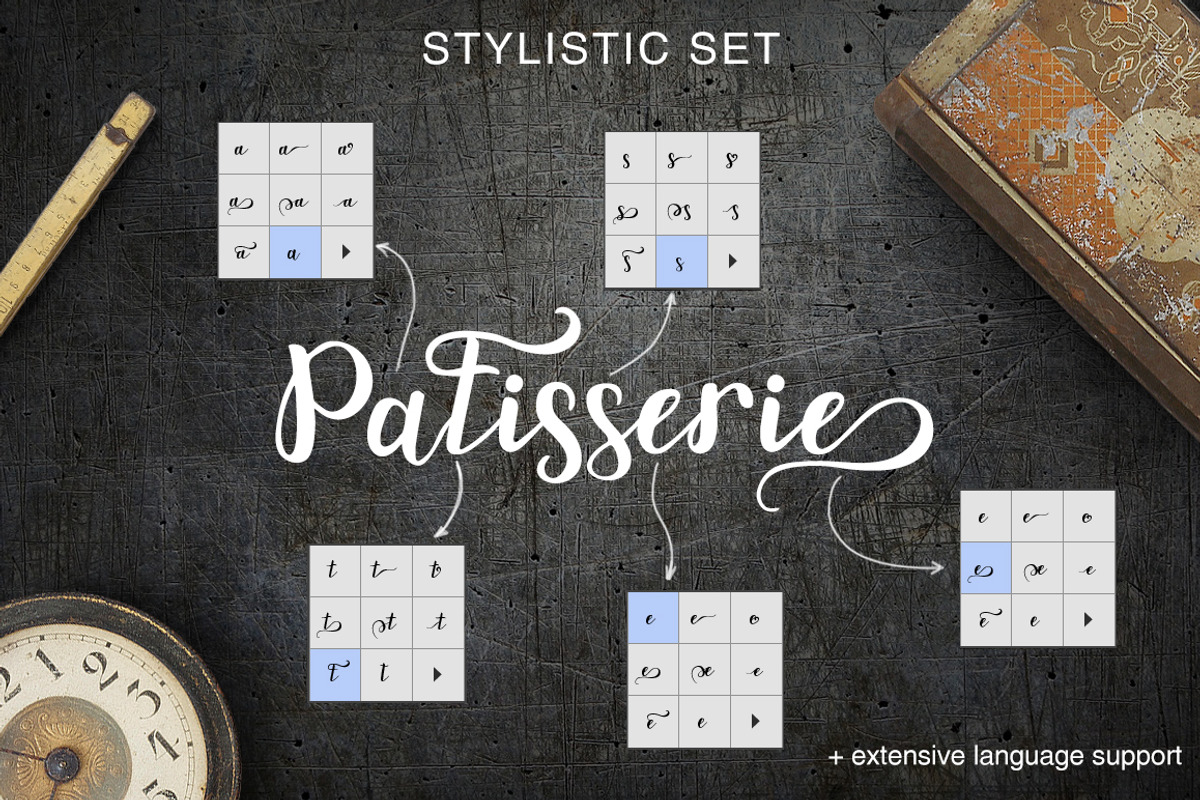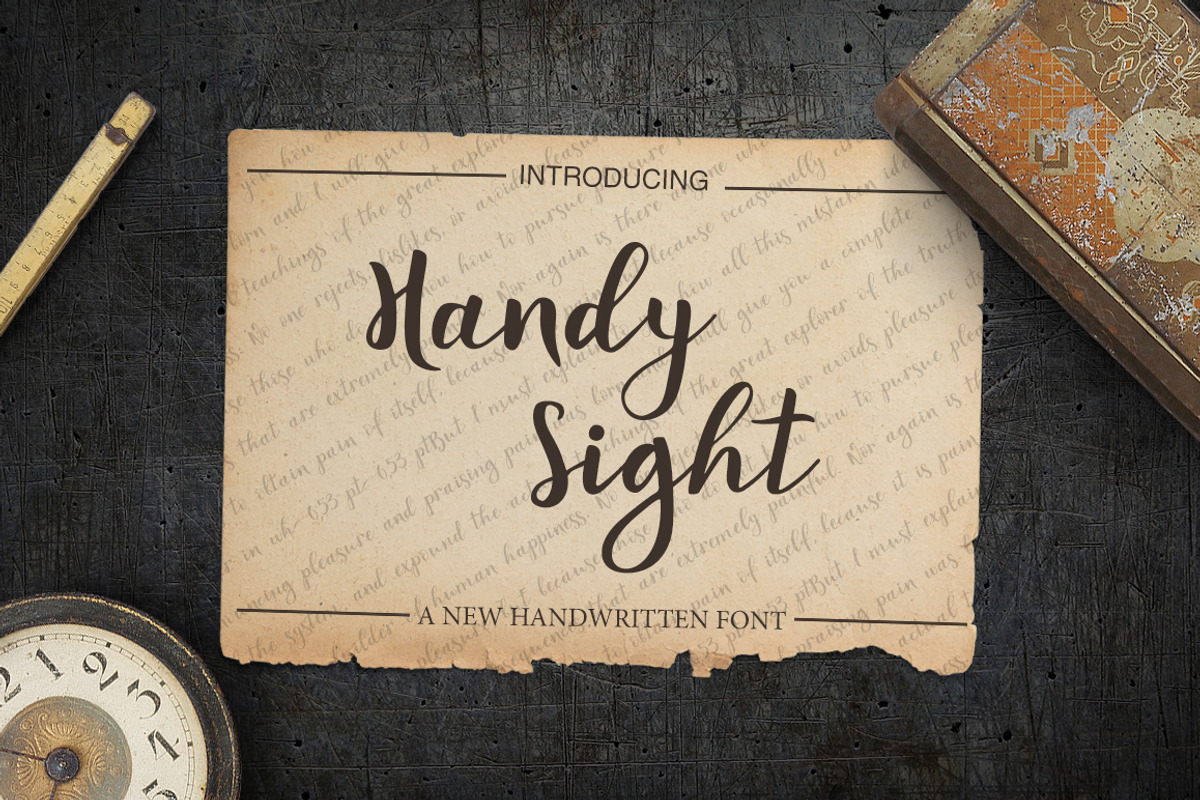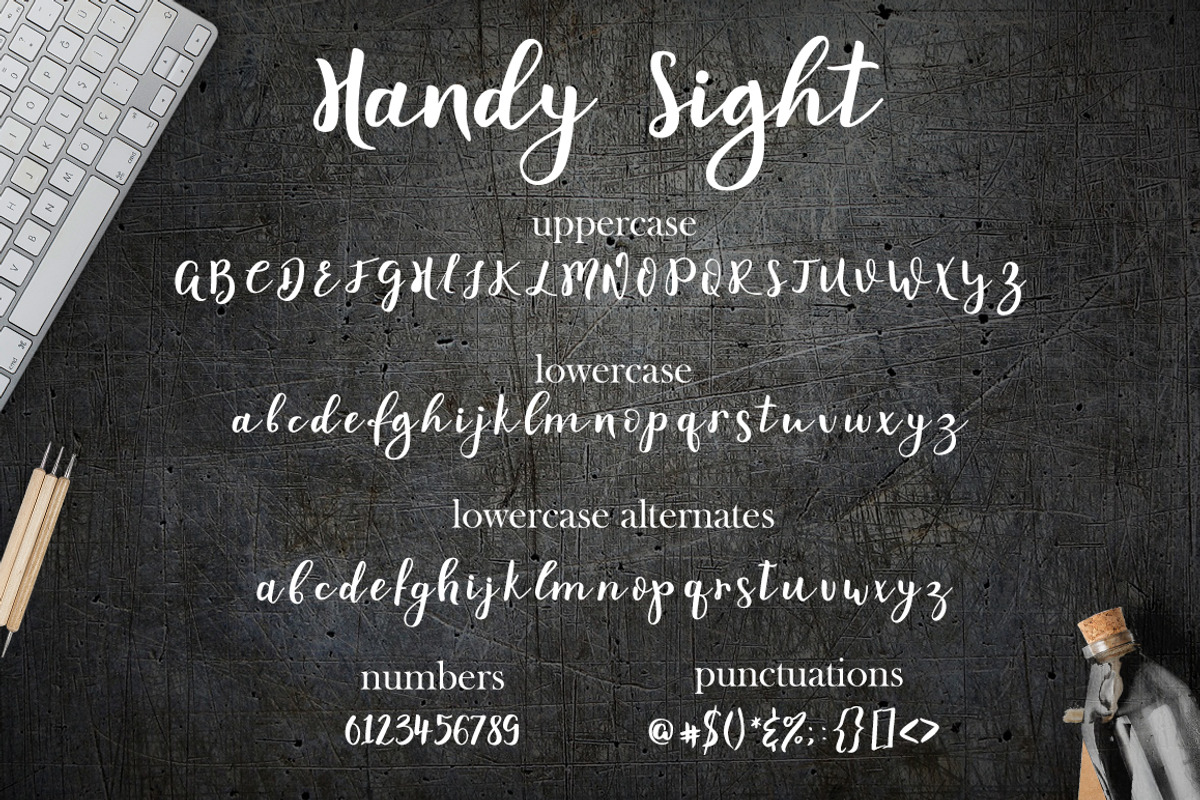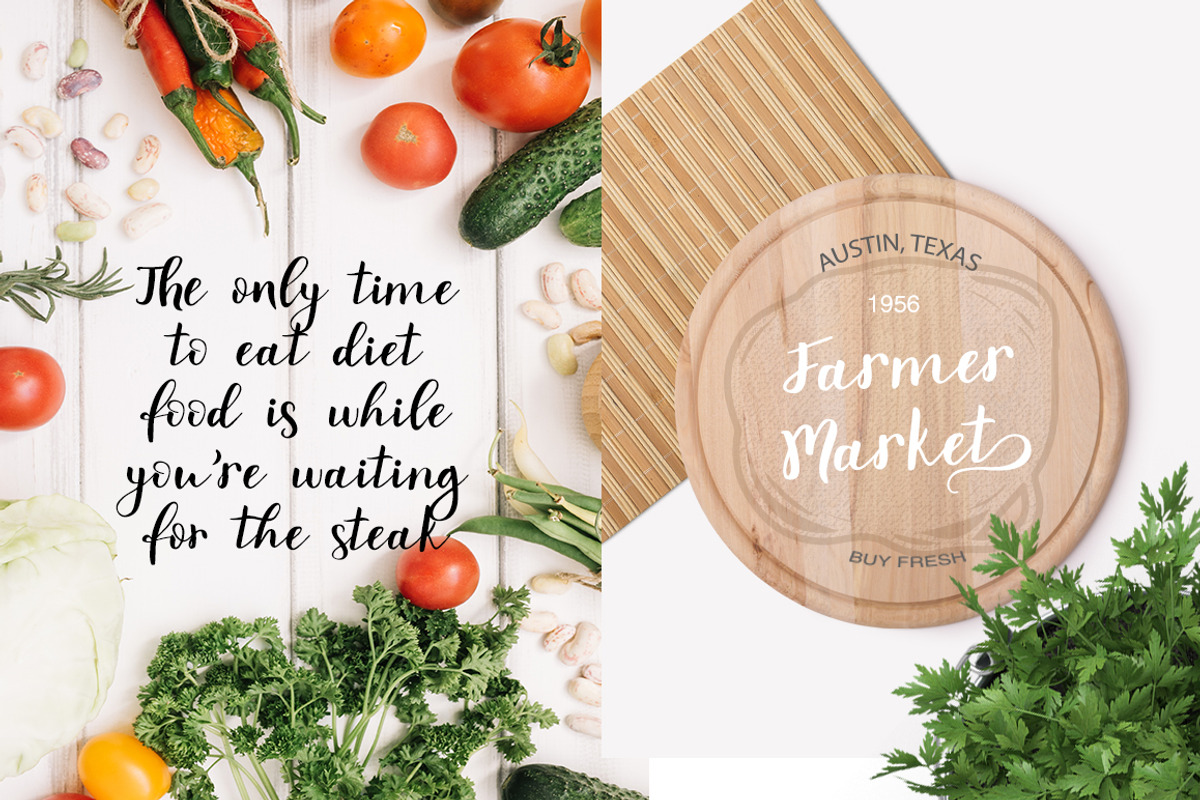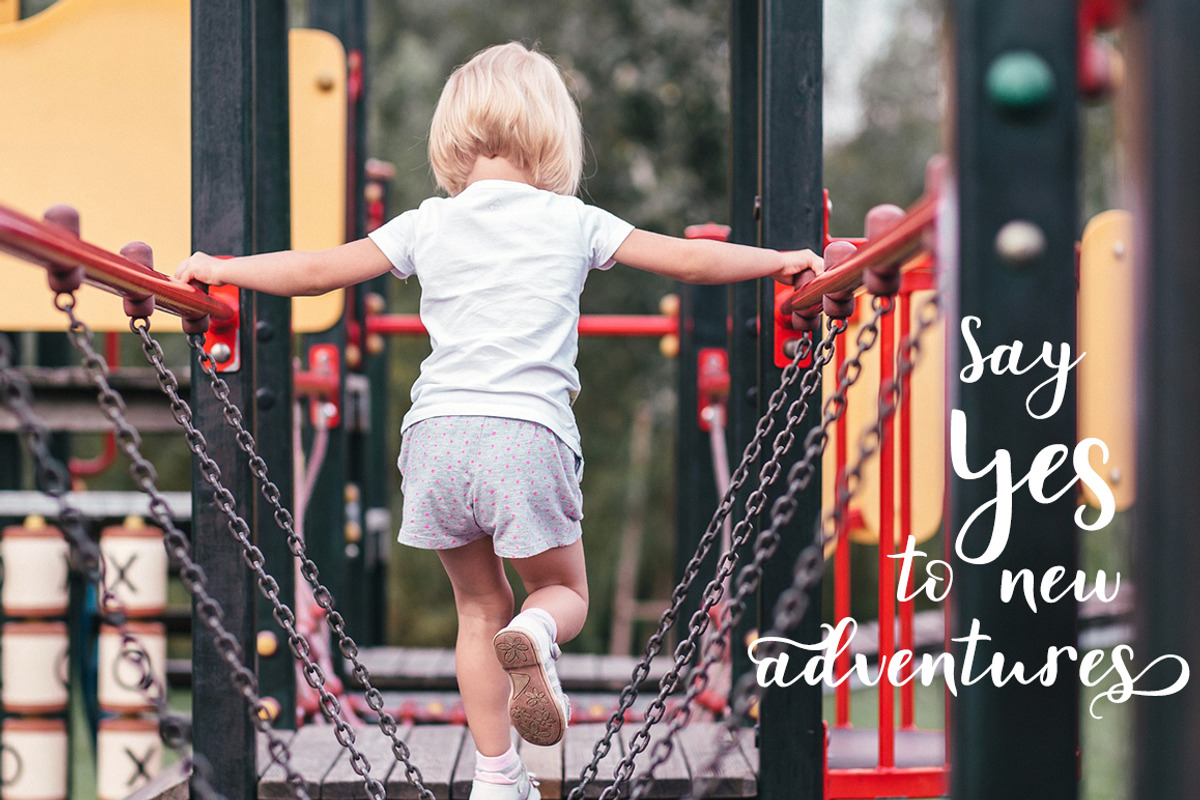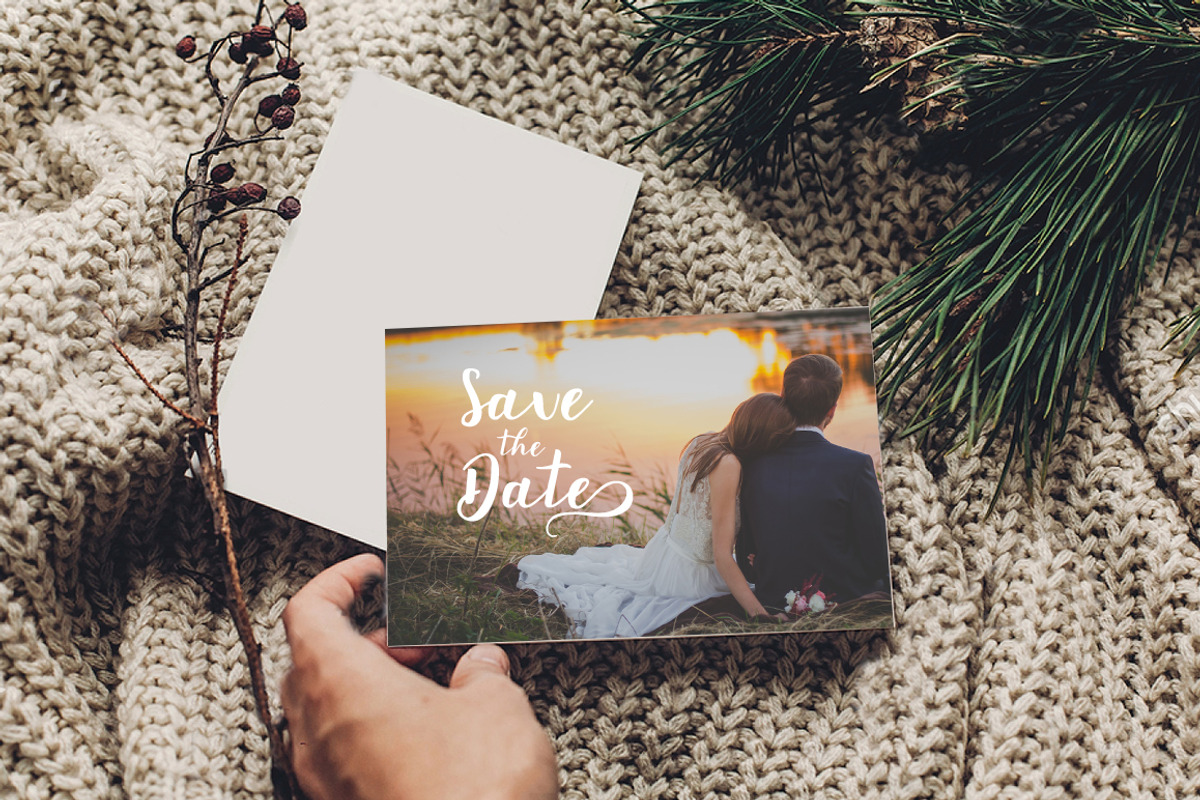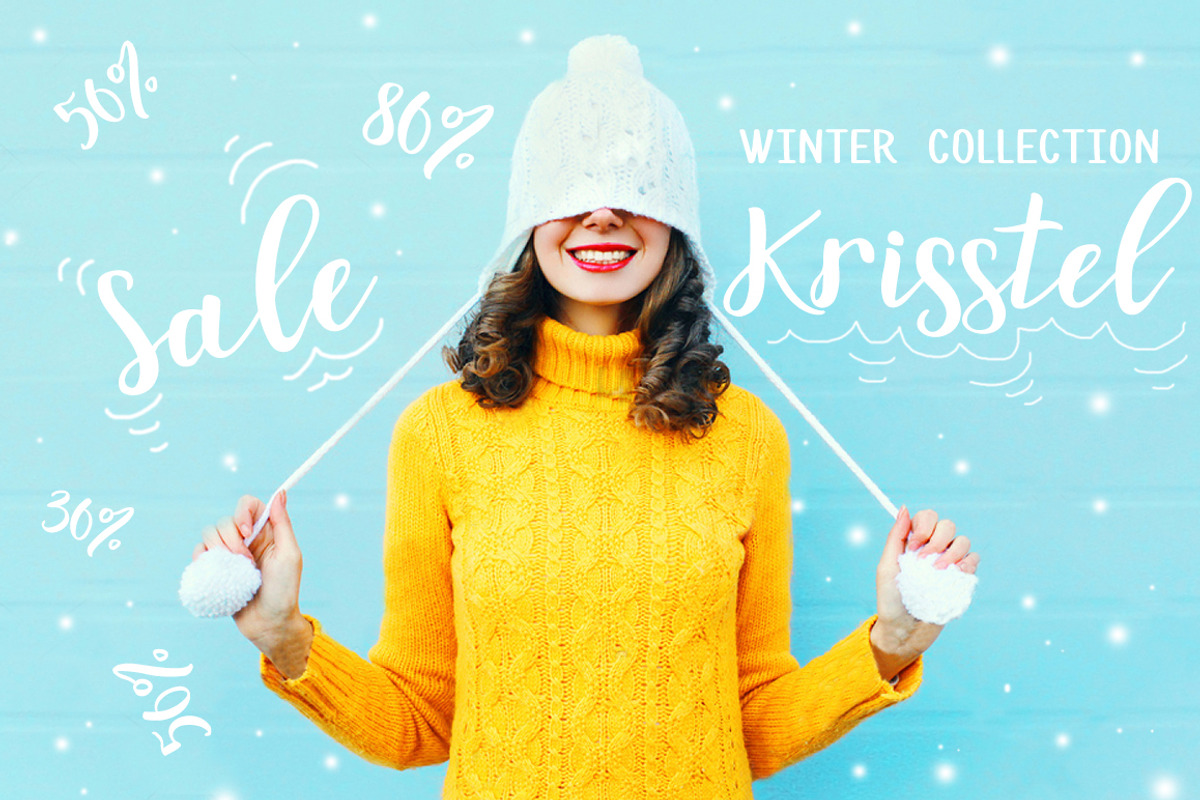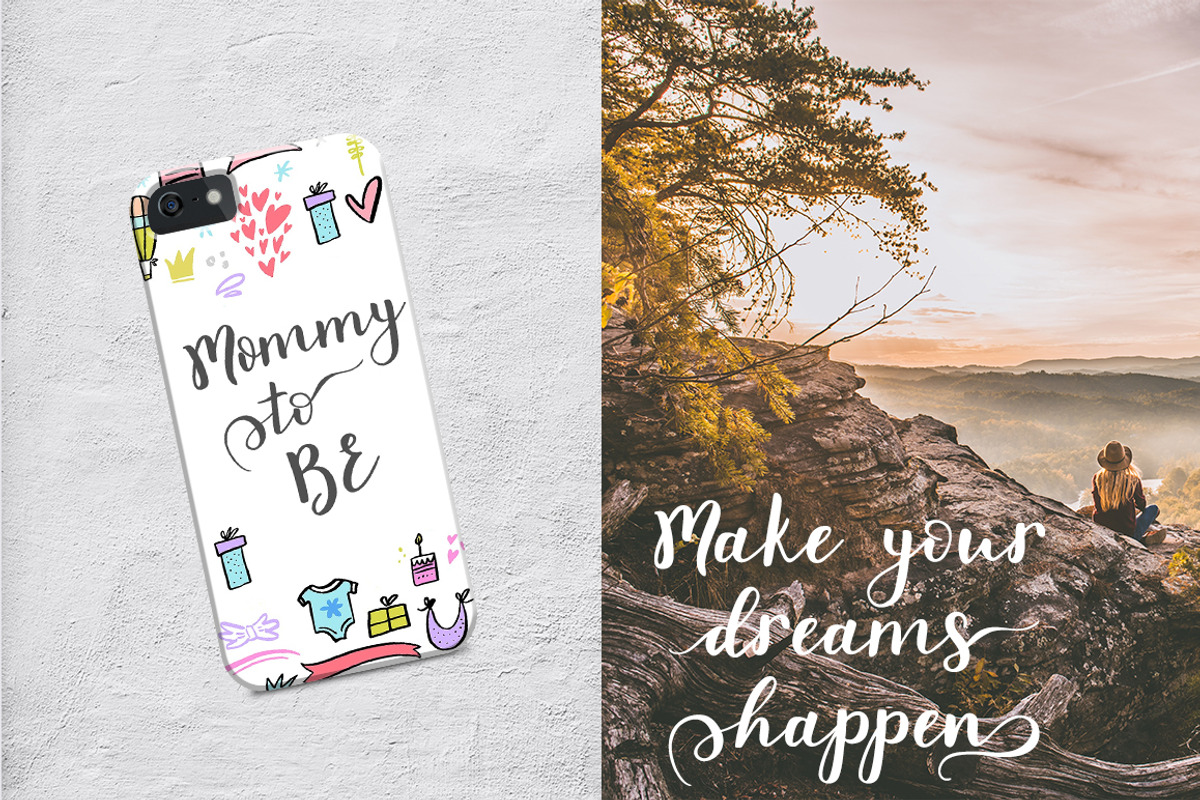
Hi guys! I'm happy to introduce you a modern brush font Handy Sight.
Handy Sight is a beautiful script font withlots of OTF.
6 variants of alternate letters with swashes for the lowercase make this font an unique tool for creating handdrawn texts, richly decorated with swashes. Just type the number after any letter ( 1…6 for lowercase). So, you can forget about the Glyphs panel and have fun and great results just type numbers after letters. This method is very fast and makes life of designers more comfortable!
Font include multiligual support
Handy Sight makes custom lettering a dream thanks to all the little extra decorative options you can include for a pretty and unique customisation. You can use this font for watermark on photography, signature or signature logo design, quotes, album cover, business card, and many other design project. Perfect for greetings, branding, prints, invitations, and crafting, print, t-shirt design, to personalised logos, handwritten quotes and so much more!